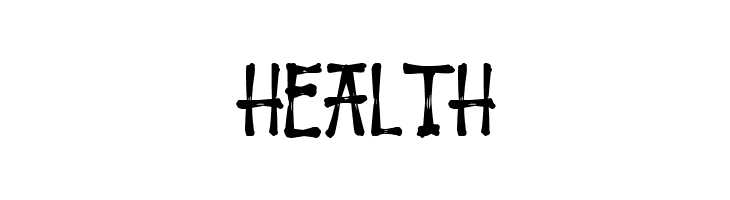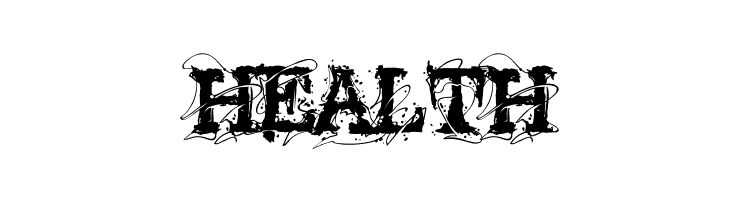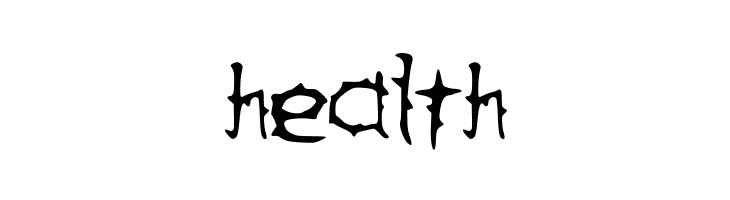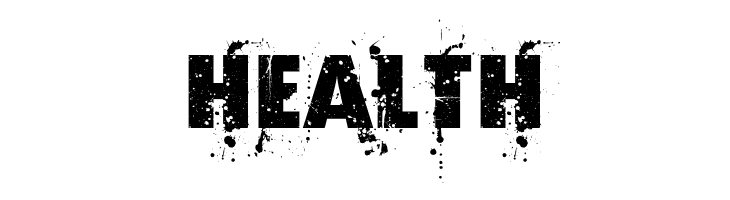
A bold, jagged, hand-drawn font with a rebellious, graffiti-like style.
A bold, edgy font with sharp, jagged edges and a rebellious, grunge-like style.
A bold, brush-like font with sharp, angular strokes and a dynamic, edgy style.
A bold, hand-drawn font with a rugged, edgy style.
A thorny, decorative font with a rebellious and edgy style.
A bold, graffiti-inspired font with intricate, chaotic detailing.
A bold, rugged, hand-drawn font with a rebellious, edgy vibe.
A jagged, distressed font with a chaotic and intense style.
A bold, distressed font with a grunge texture and urban style.
A bold, italicized, handwritten font with an edgy, dynamic style.